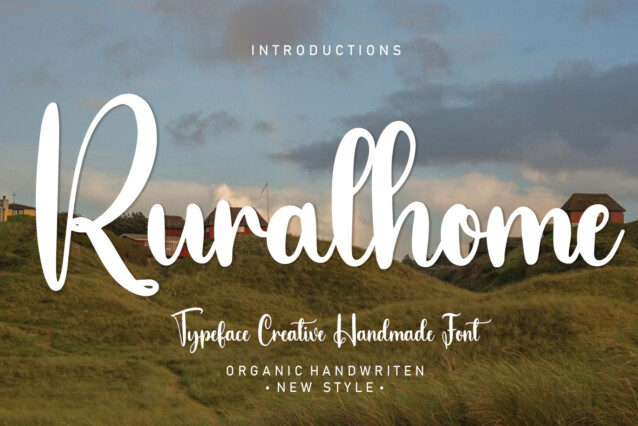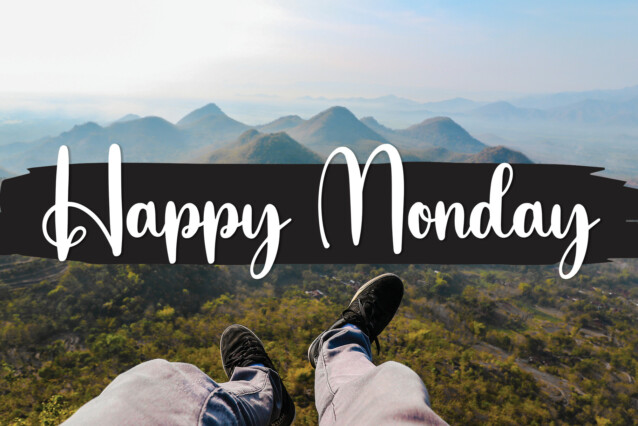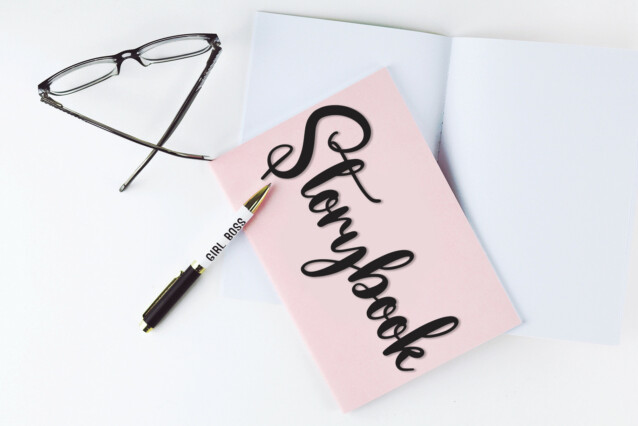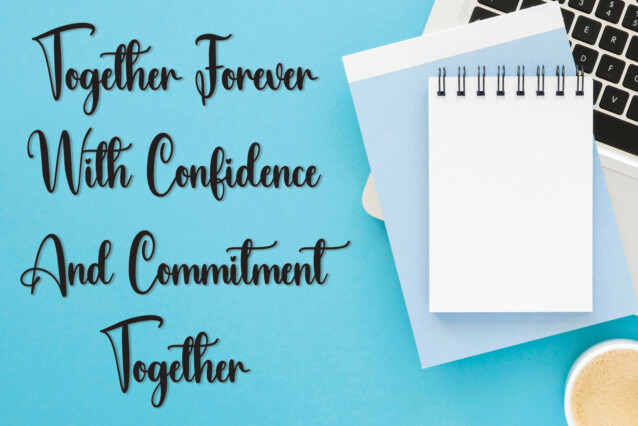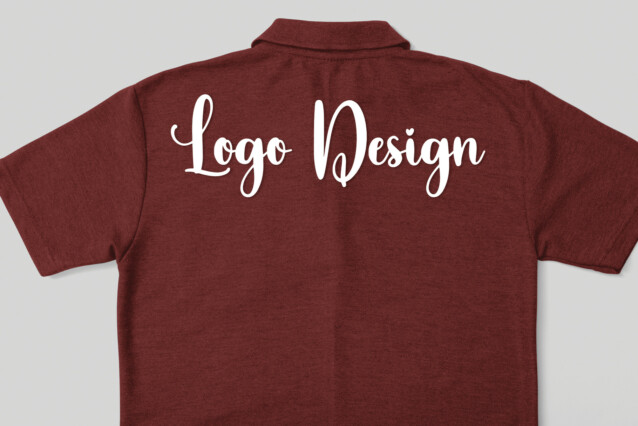
Ruralhome Script Font
Ruralhome Script Font is a modern and neat handwritten font. No matter the topic, this font will be an incredible asset to your fonts’ library, as it has the potential to elevate any creation.